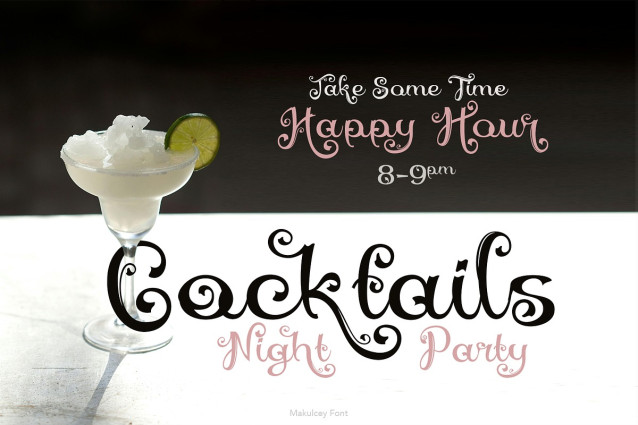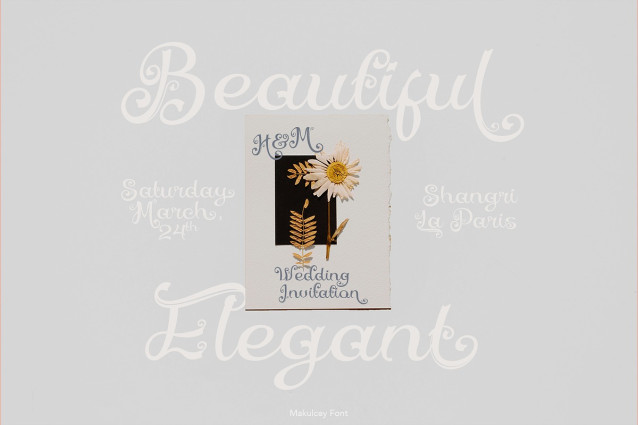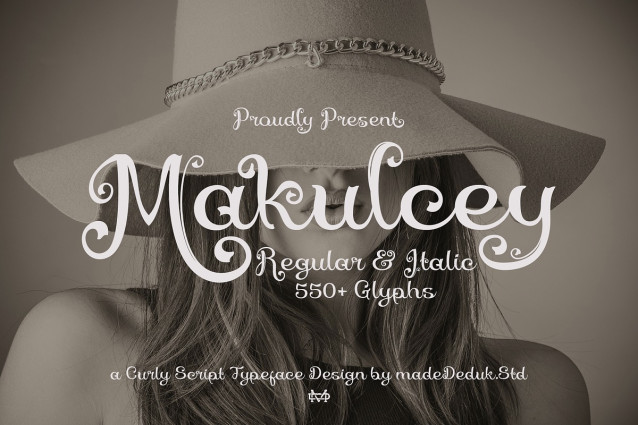
Makulcey Script Font
Makulcey Script Font is a classic script font comes with curly style with much alternative and ligature. This font is very perfect for many display purposes in your product design if you want to a modern vintage style look. Such as book covers, product labels, logos badges, drink bottles, tattoo shop, coffee shops, and many more.